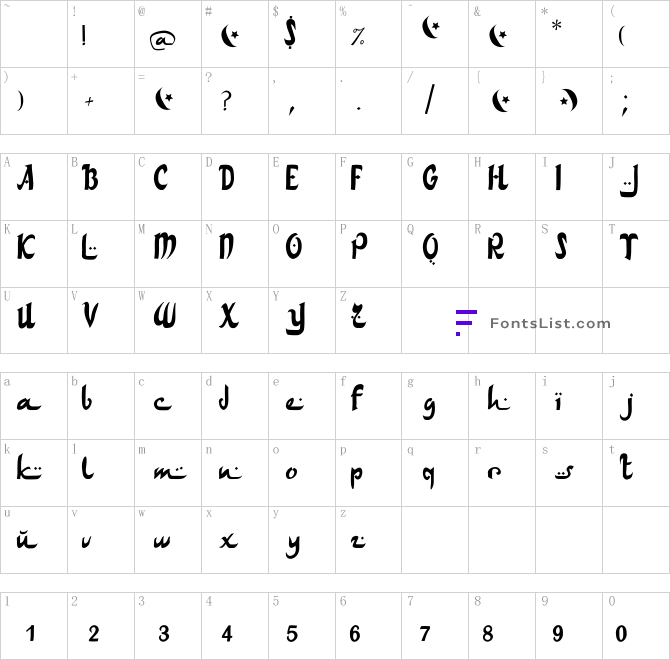
- Font Name:ArabDances
ArabDancesMediumItalic.ttf is a very beautiful artistic font, ArabDancesMediumItalic.ttf is widely used in the design and printing of various books and pictures,ArabDancesMediumItalic.ttf has a strong visual impact,ArabDancesMediumItalic.ttf is a commonly used font in newspapers, magazines and books, and is used in posters, e-commerce Poster design, store design, logo design, font design and other fields.ArabDancesMediumItalic.